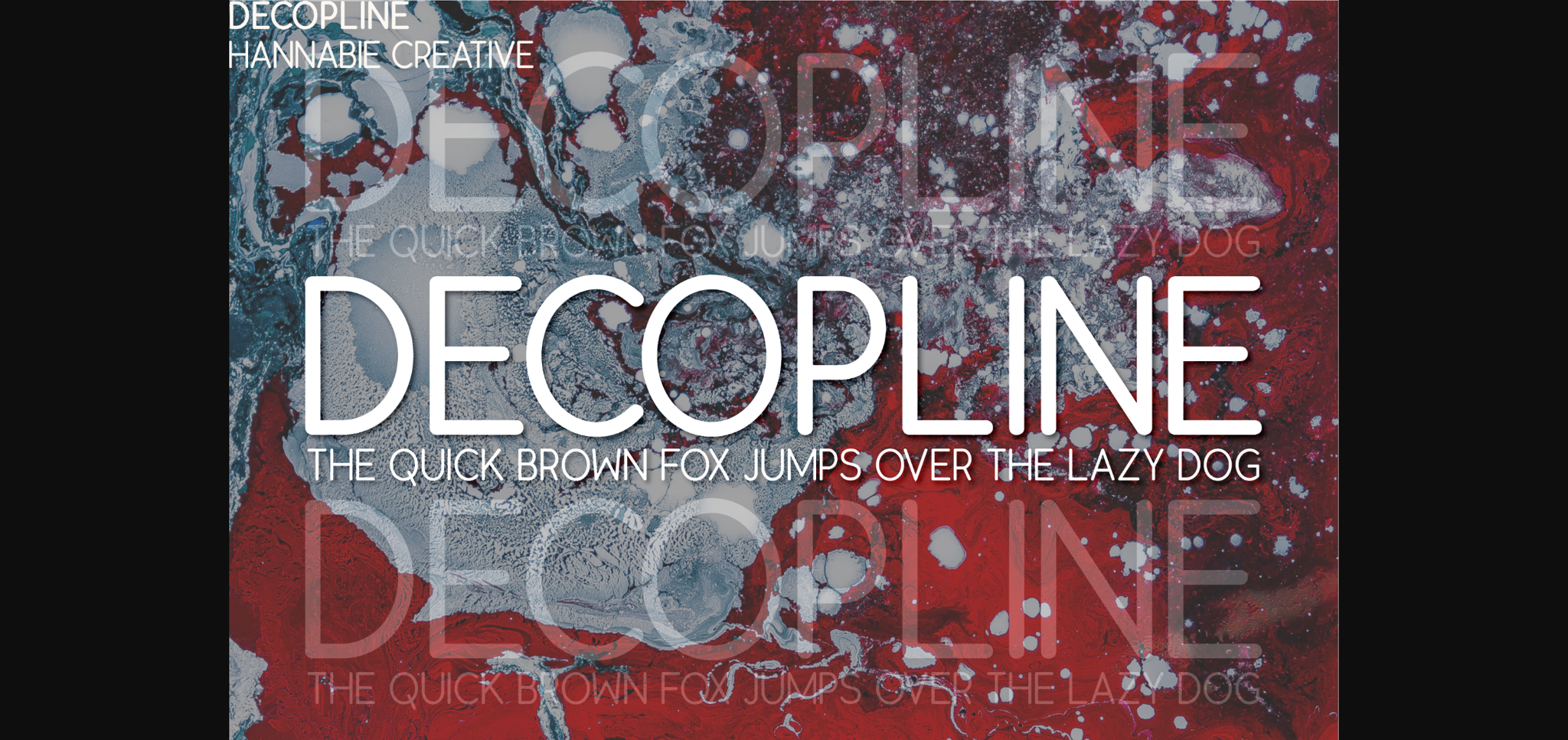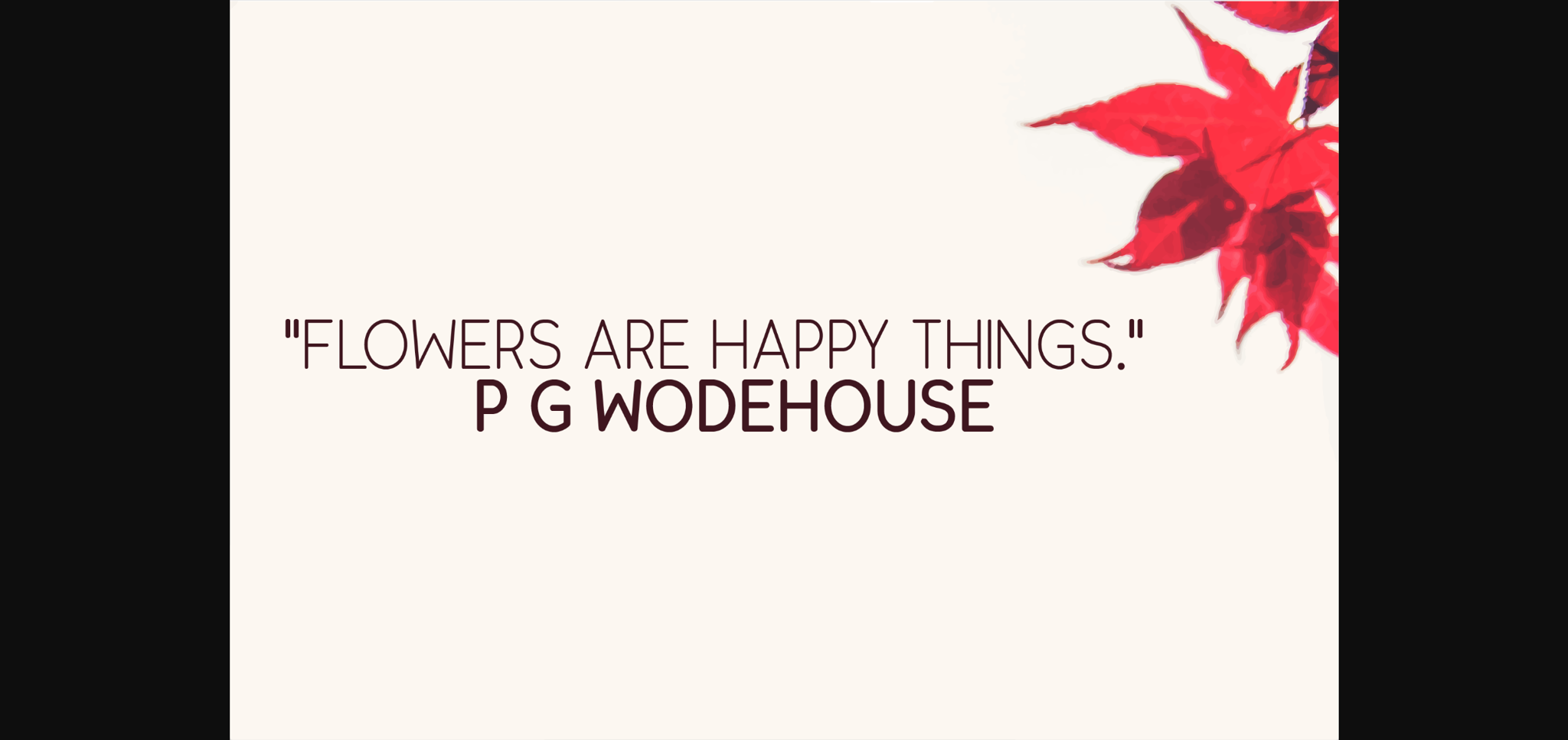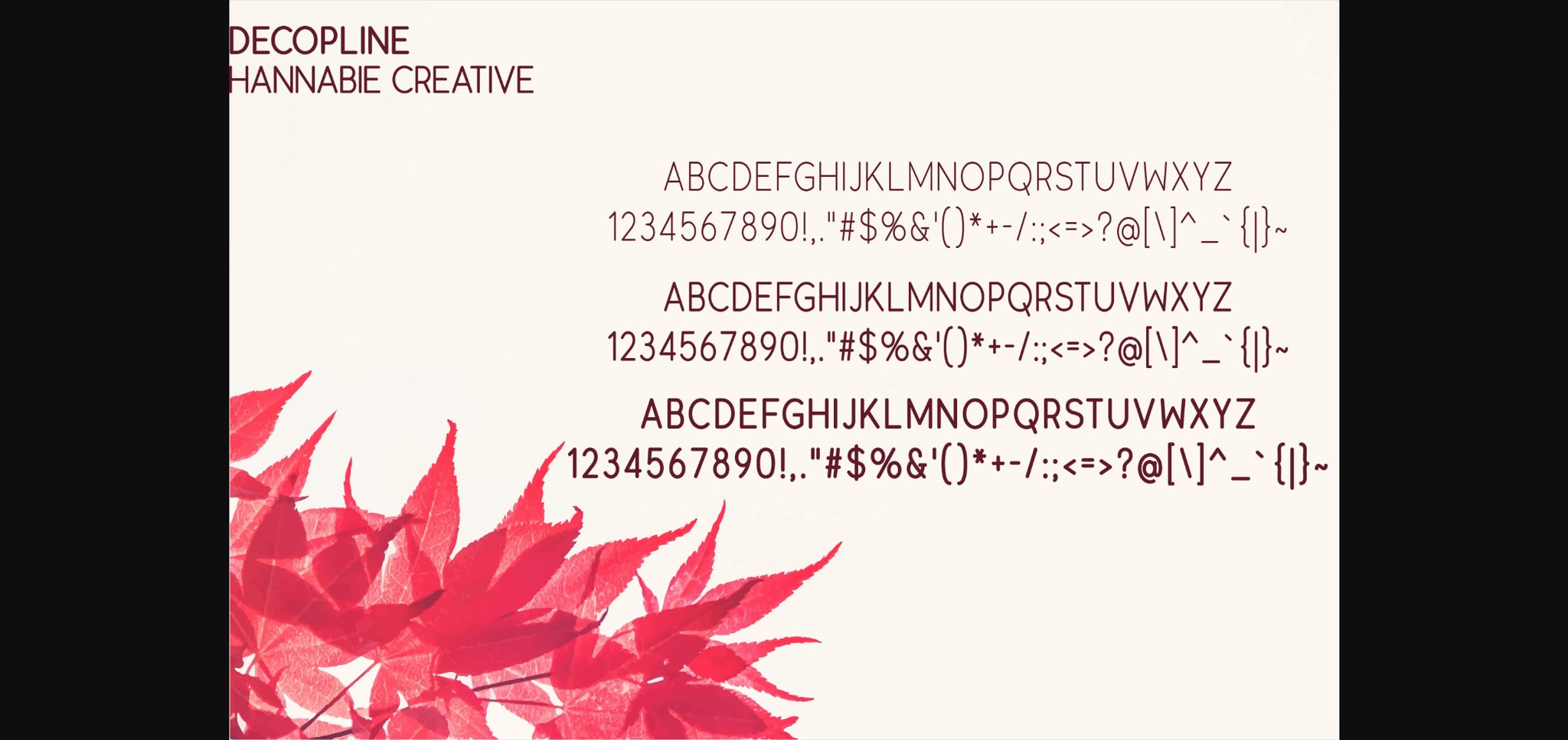
Decopline Font
About Decopline Font
Decopline is a minimalist, modern and elegant sans serif font that’s perfect for delivering any message with clarity and style.